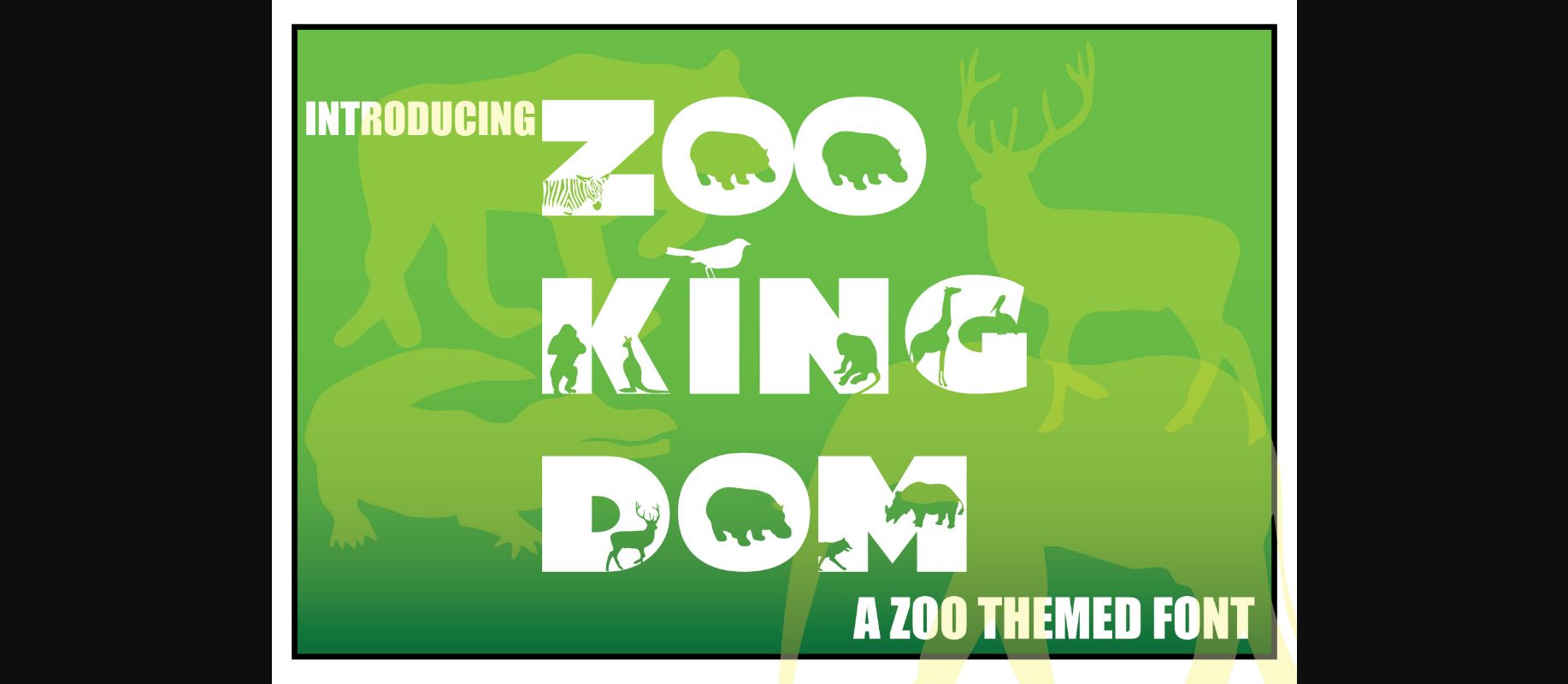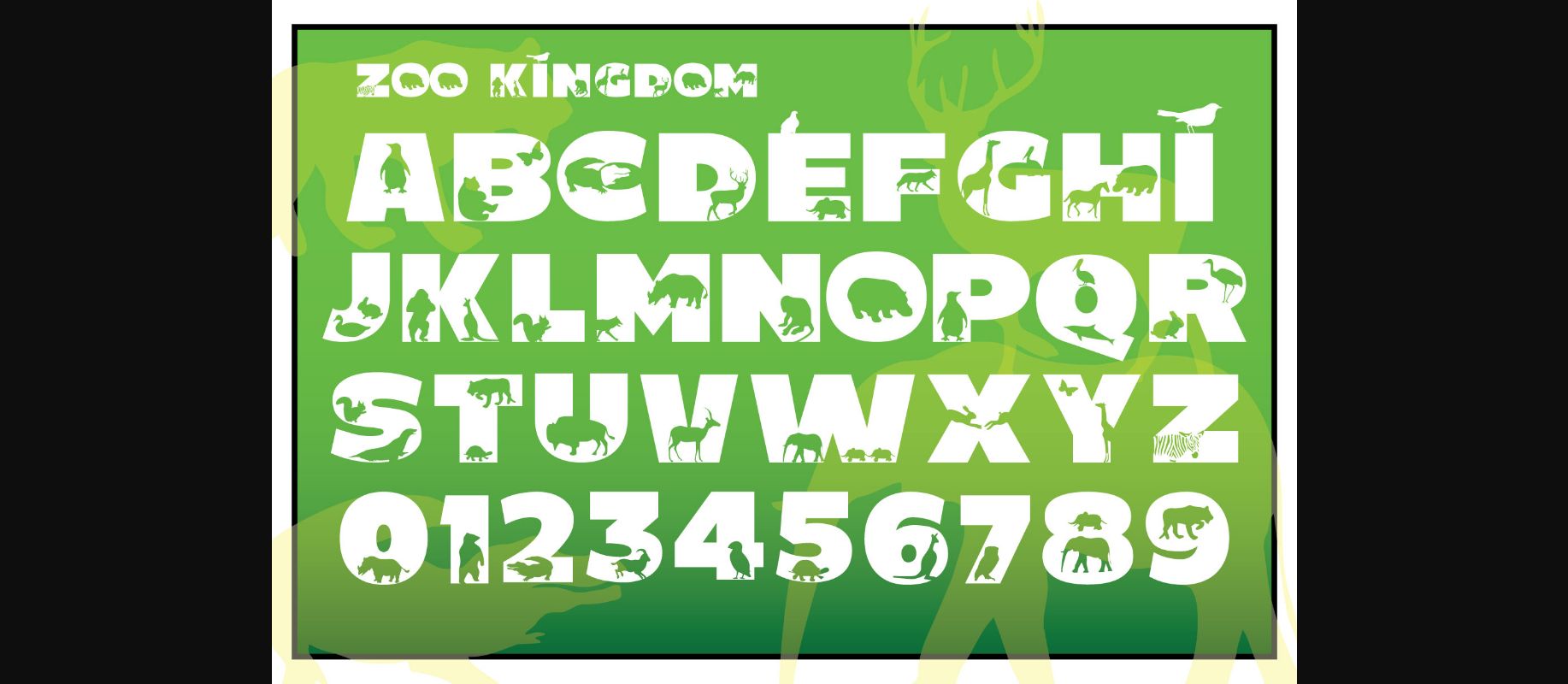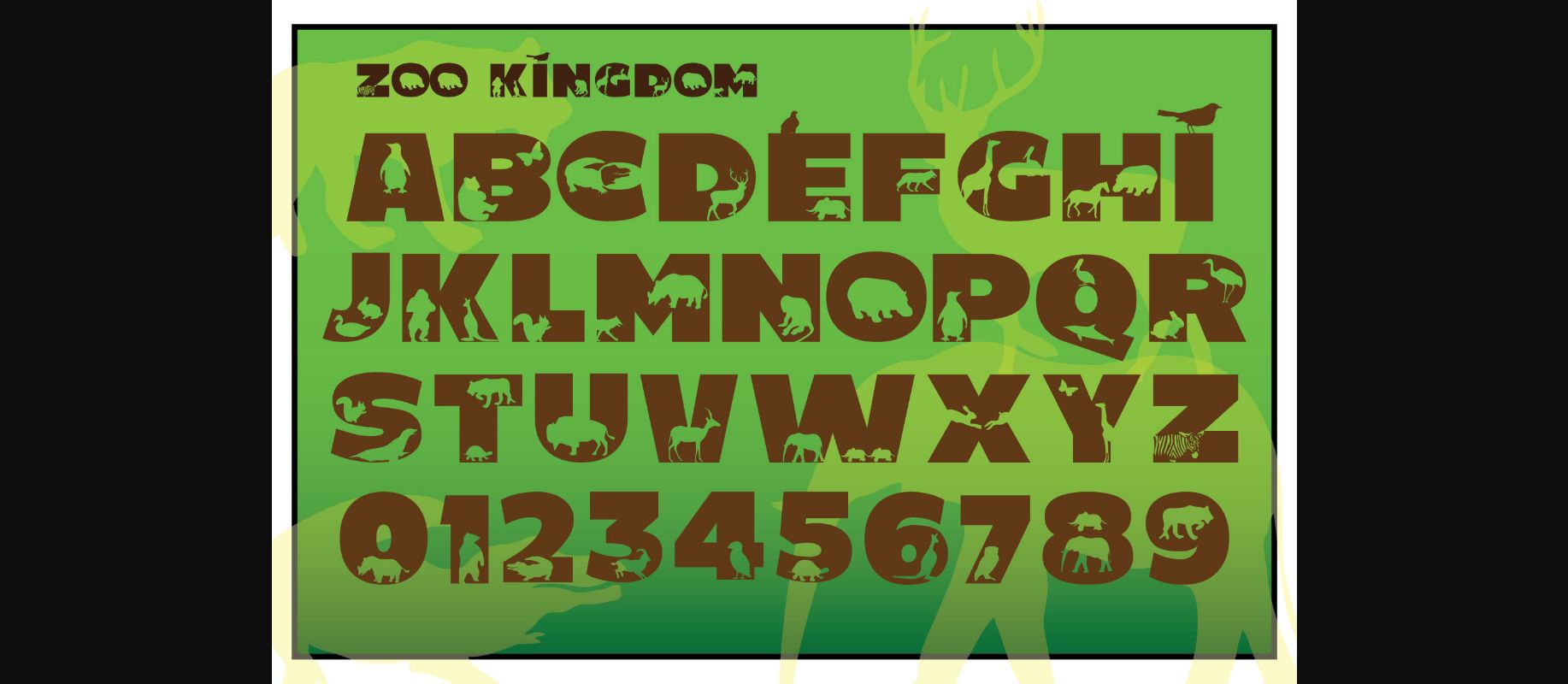
Zoo Kingdom Font
About Zoo Kingdom Font
Zoo Kingdom is a chunky lettered, authentic and friendly decorative font. No matter the topic, this font will be an incredibly asset to your fonts’ library, as it has the potential to elevate any creation.